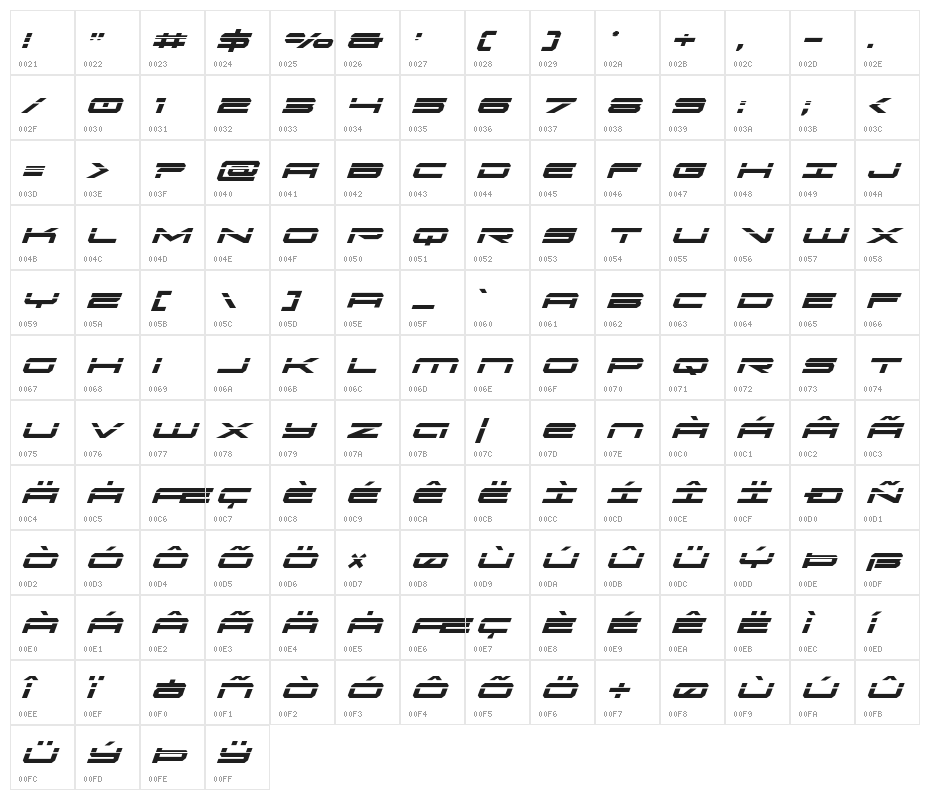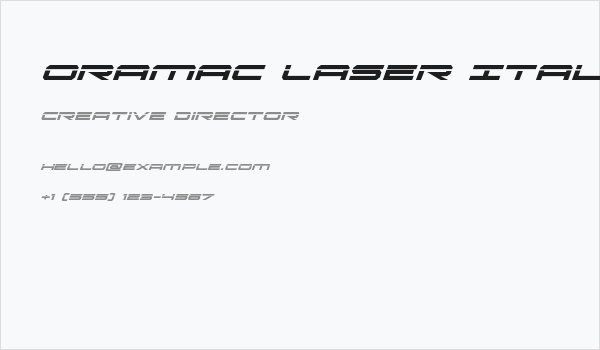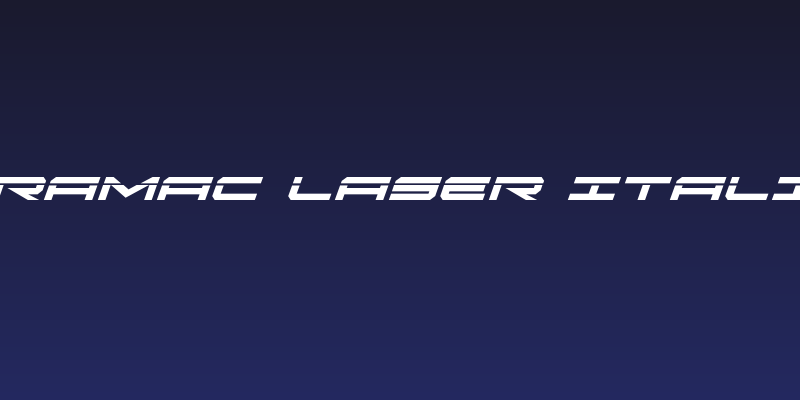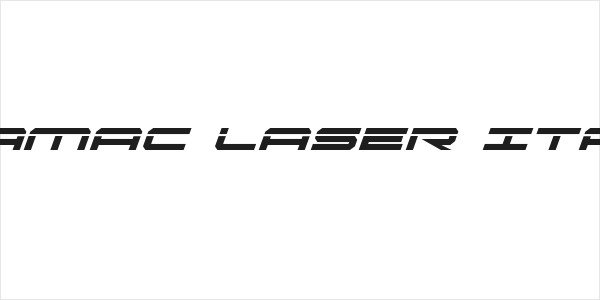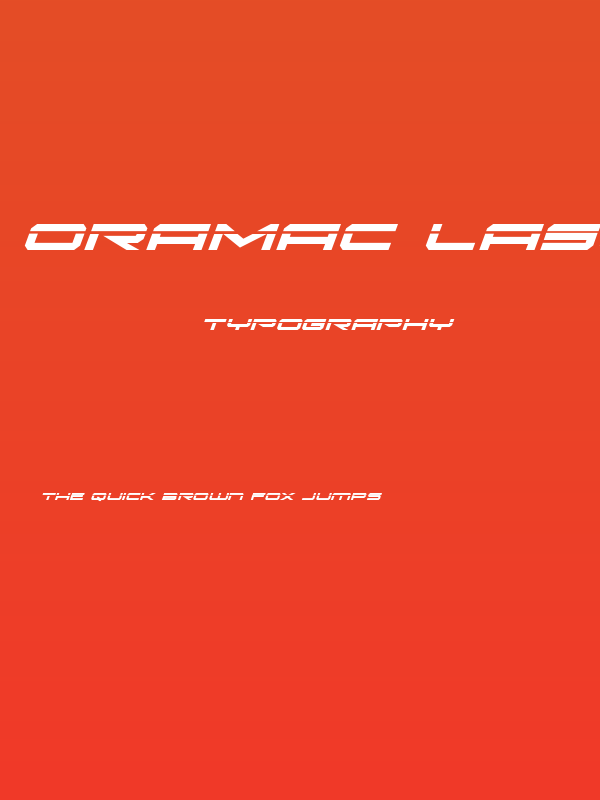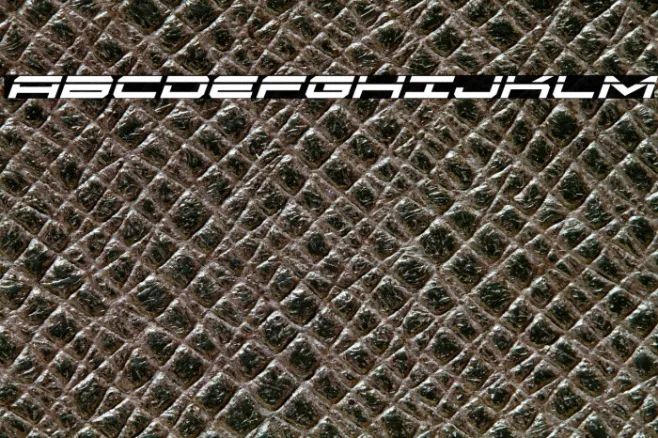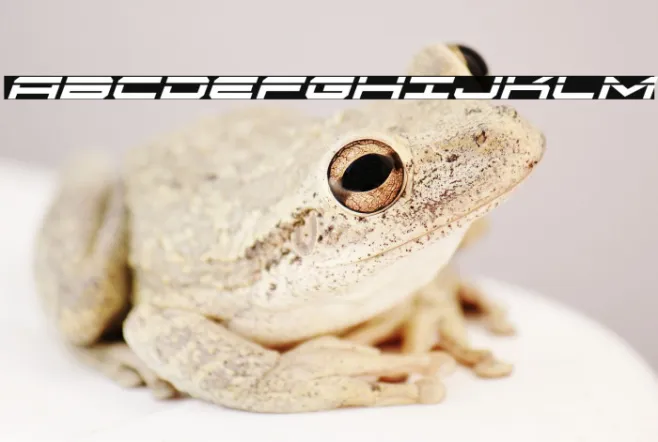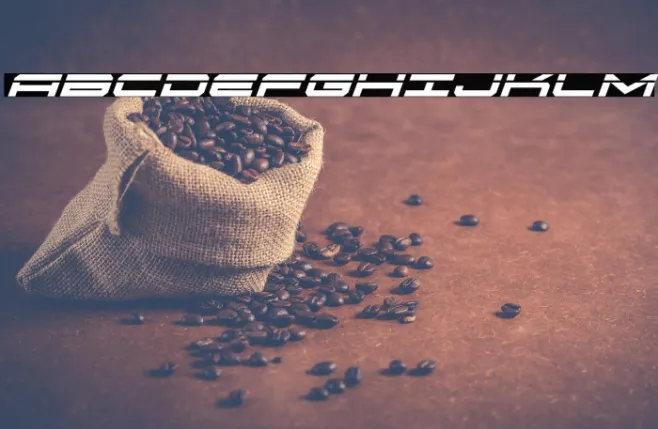
Oramac Laser Italic Font
Oramac Laser Italic Description
This font features a futuristic and angular design, characterized by sharp edges and a sleek, italicized form. The letters are distinctly geometric, with a consistent slant that adds a sense of motion and dynamism. The uppercase and lowercase letters maintain a uniform style, and the numerals are crafted to match the overall aesthetic. Special characters are included, each designed to complement the angular theme. The font's bold presence makes it suitable for projects that require a modern and edgy look.
| Proposed Projects | Ideal for sci-fi themed designs, technology branding, video game titles, and modern advertising. |